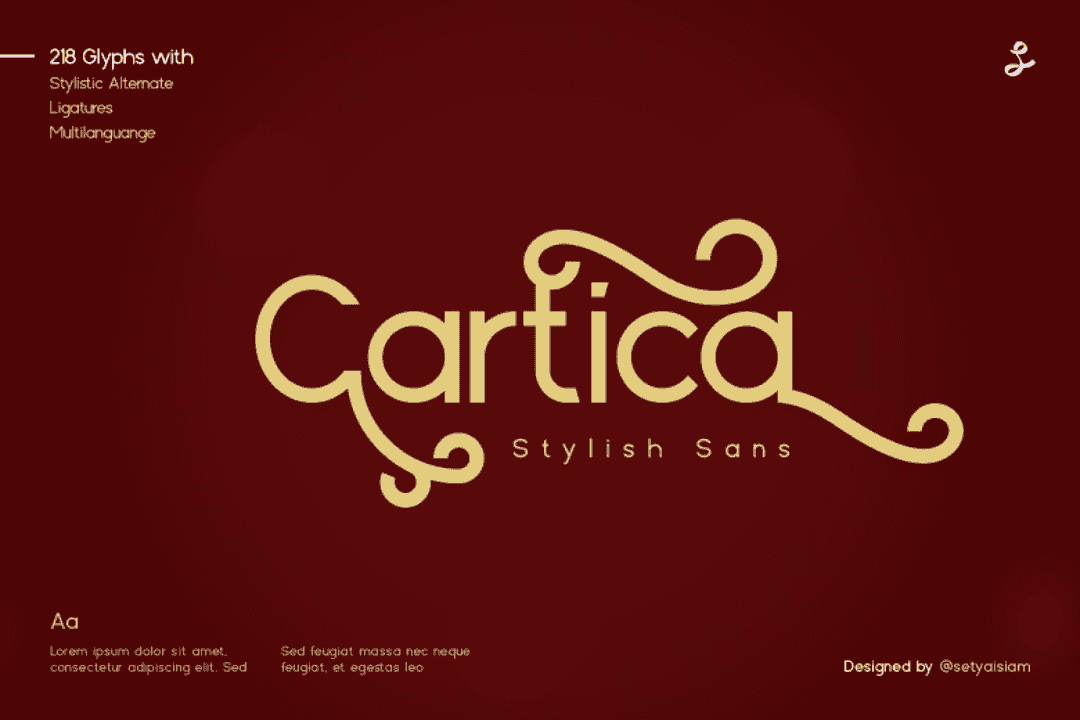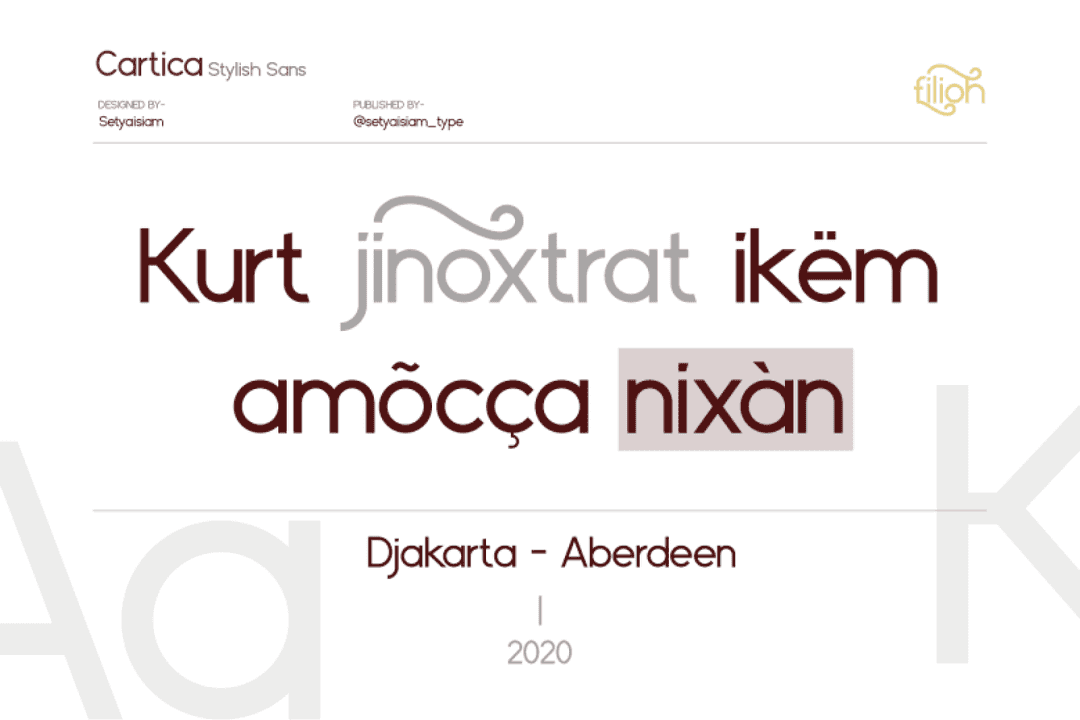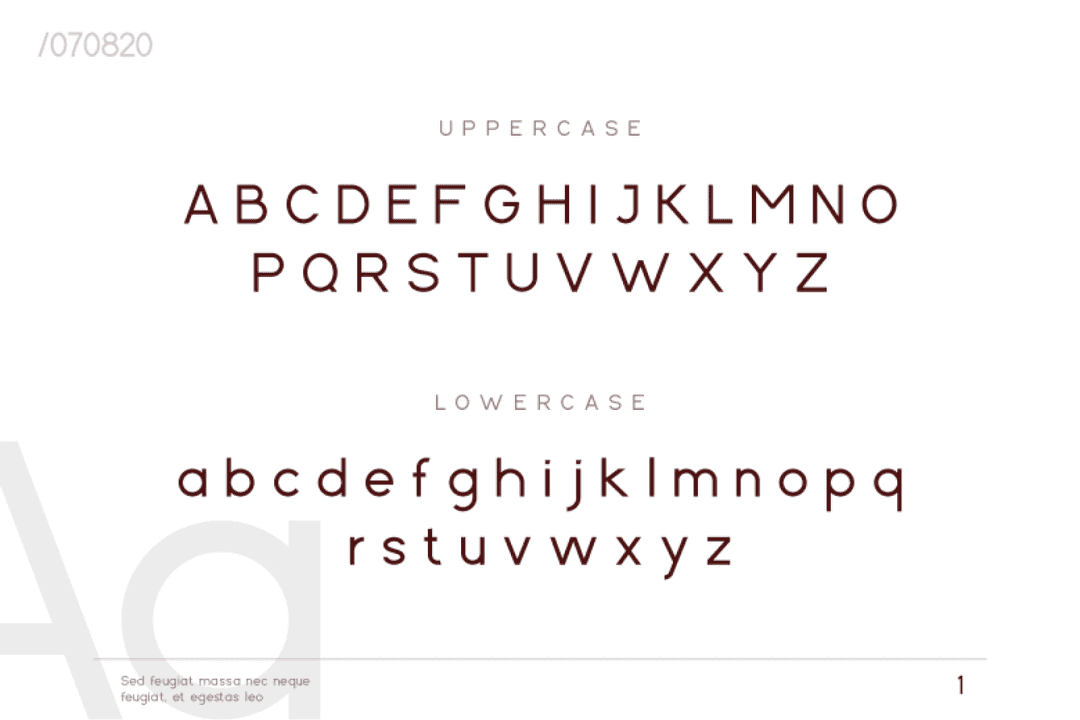
Discover Cartica Stylish Sans Serif Font, part of the Sans Serif Retro Basic Vintage collection—a versatile and unique font perfect for adding a personal touch to your projects. Download it for free and enjoy crafting designs with style, from invitations to social media posts. This font is available exclusively for personal use, giving you the freedom to create without limits. Unlock your creativity with Cartica Stylish Sans Serif Font today!
Cartica is a simple yet sophisticed sans serif font that can easily be used for a wide range of design projects. It is advisable to use this font for the purpose of Creativity and incorporate it in your works and you wouldn’t believe what will pop out!